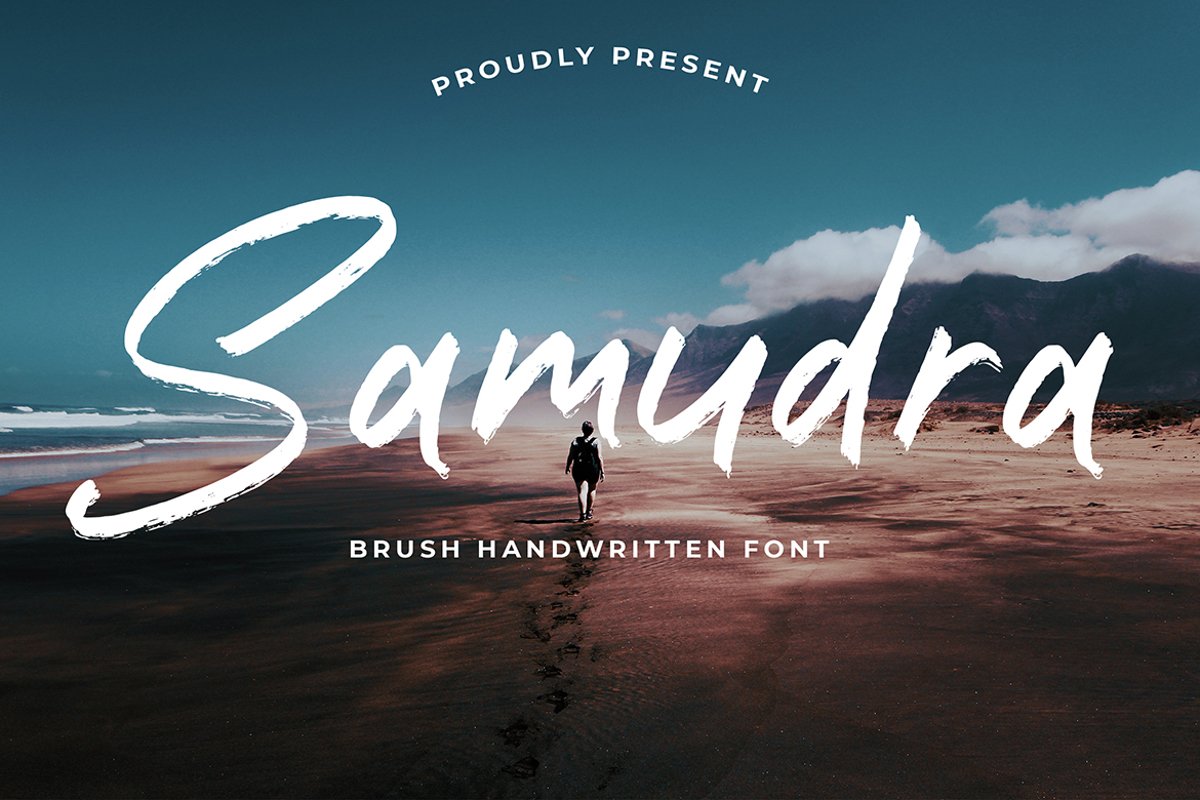
Samudra Brush Handwritten font
Samudra
Samudra is an exciting handwritten font with brush style. This beautiful script can make your text appear elegant, luxurious, and modern!This font perfect for branding projects, logo, book cover design, tshirt designs, social media posts, advertisements, product packaging, product designs, label, watermark, invitation, stationery and any projectsWhat's Included :
Samudra Brush Handwritten font